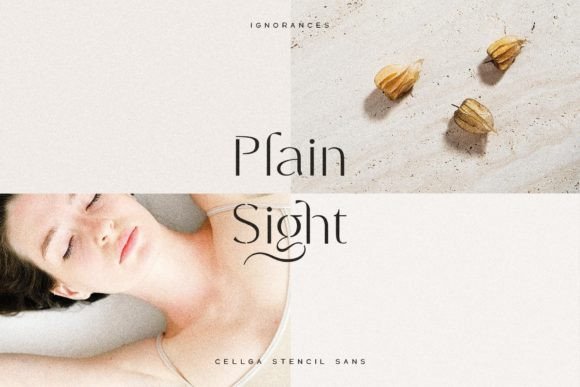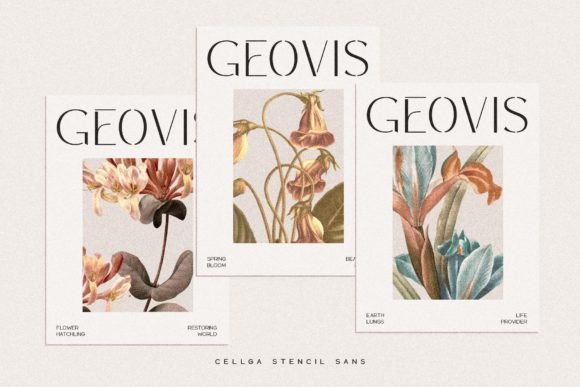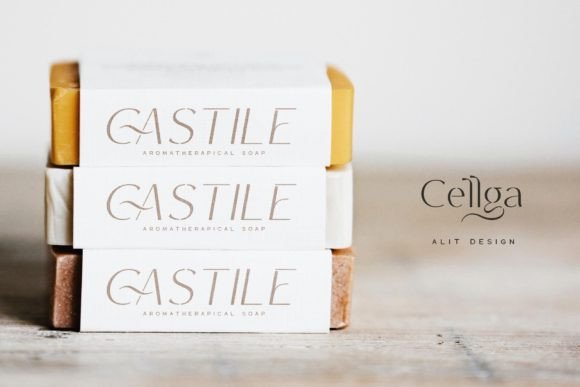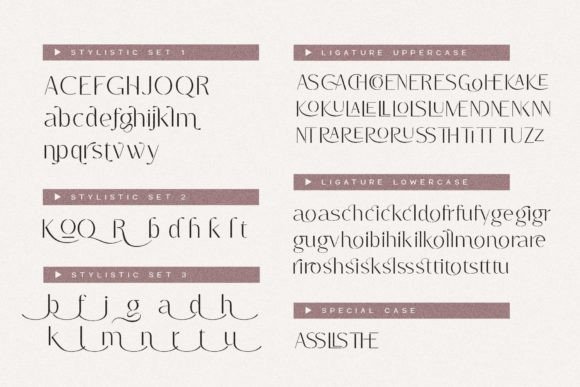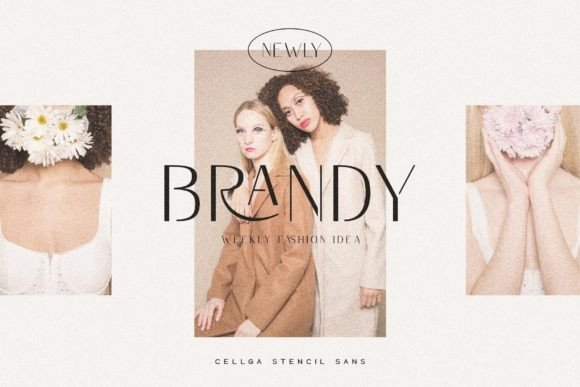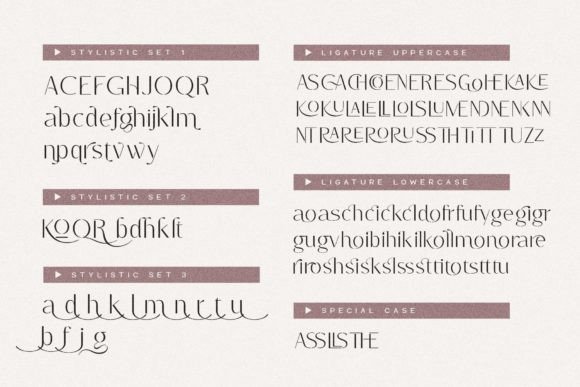
Introducing Cellga Font: Elevate Your Designs with Elegance and Sophistication
When it comes to stencil fonts, many designers automatically think of military, retro, and bold characters. However, Cellga breaks the mold by offering an elegant and attractive stencil style that’s perfect for modern designs. With its subtle swash and versatile character shapes, Cellga is an excellent addition to any font collection. In this article, we’ll dive into the features and benefits of Cellga, and explore how it can elevate your designs to the next level.
A Modern Take on Stencil Fonts
Cellga’s stencil style is a refreshing departure from the typical bold and rugged aesthetic associated with this font genre. Its elegant and attractive design makes it an ideal choice for projects that require a touch of sophistication. Whether you’re working on a branding campaign, packaging design, or editorial project, Cellga’s unique style is sure to make a lasting impression.
Swashes and Alternates: Unleash Your Creativity
One of the standout features of Cellga is its subtle swash, which adds a touch of flair to your designs. But that’s not all – this font also comes with numerous alternative character shapes and unique discretionary ligatures. These features allow you to experiment with different typography combinations, creating a truly unique and charming design that’s all your own.
Cellga is PUA (Private Use Area) encoded, making it easy to access all the glyphs and swashes. This means you can effortlessly navigate the font’s extensive character set, including the swashes and alternates, to create stunning typography. With PUA encoding, you can focus on designing, not wrestling with font limitations.
Sans Serif Elegance: Versatility at Its Best
As a sans serif typeface, Cellga is incredibly versatile and easy to apply to various designs, especially those with an elegant, modern, and classic theme. Its clean lines and elegant curves make it an excellent choice for:
- Packaging design
- Editorial projects (books, magazines, newspapers)
- Digital media (websites, social media, mobile apps)
Why Cellga Should Be in Your Font Collection
Cellga is more than just a font – it’s a design solution. With its unique blend of elegance, sophistication, and versatility, it’s an excellent addition to any designer’s font collection. Here are just a few reasons why:
- Unique style: Cellga’s stencil style is unlike any other font on the market, making it a great way to stand out from the design crowd.
- Ease of use: With PUA encoding, you can easily access all the glyphs and swashes, streamlining your design process.
- Versatility: Cellga’s sans serif design makes it suitable for a wide range of projects, from elegant and modern to classic and sophisticated.
In conclusion, Cellga is a game-changing font that’s sure to elevate your designs to new heights. Its elegant and attractive stencil style, combined with its subtle swash and versatile character shapes, make it an excellent choice for designers and crafters looking to add a touch of sophistication to their projects. With PUA encoding and a wide range of applications, Cellga is a must-have font for any design enthusiast. So why wait? Add Cellga to your font collection today and experience the power of elegant typography!